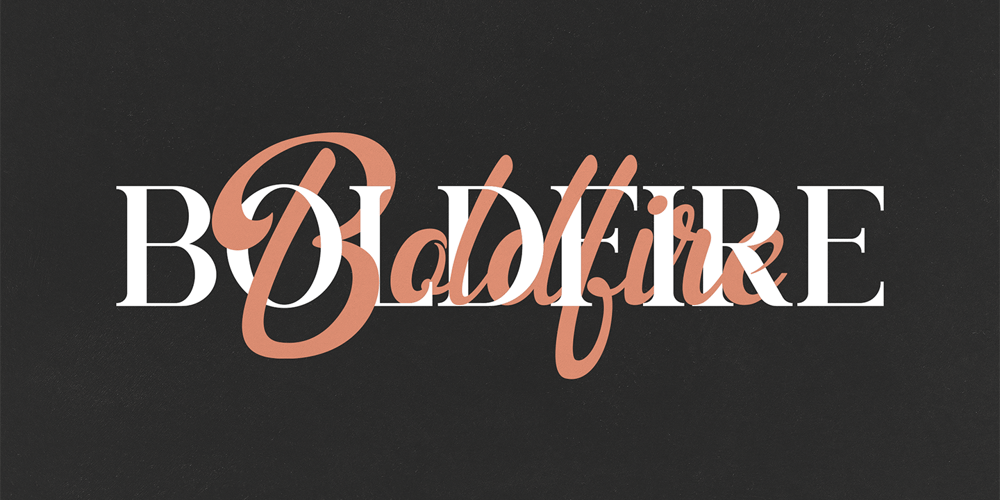
Boldfire
Boldfire font
Boldfire Font Family was designed by Vladimir Fedotov, Plamen Petrov and published by VP Creative Shop. Boldfire contains 2 styles and family package options. Introducing Boldfire – creative font duoBoldfire is elegant and organic typeface with multilingual support. It’s a very versatile font that works great in large and small sizes.This font duo is perfect for branding projects, home-ware designs, product packaging, magazine headers – or simply as a stylish text overlay to any background image.FEATURES Uppercase, lowercase, numeral, punctuation & Symbol Regular Script Multilingual support No special software is required to type out the standard characters of the Typeface. Canva friendly Feel free to contact me if you have any questions!Mock ups and backgrounds used are not included.Thank you! Enjoy!